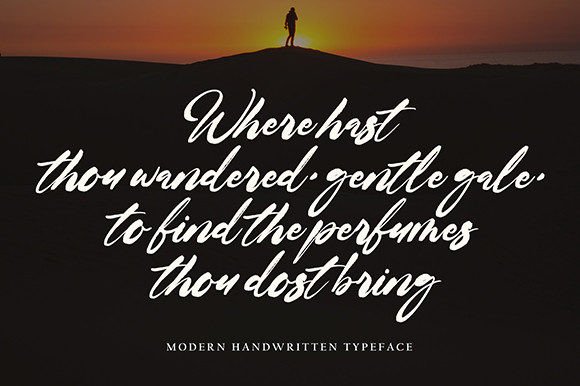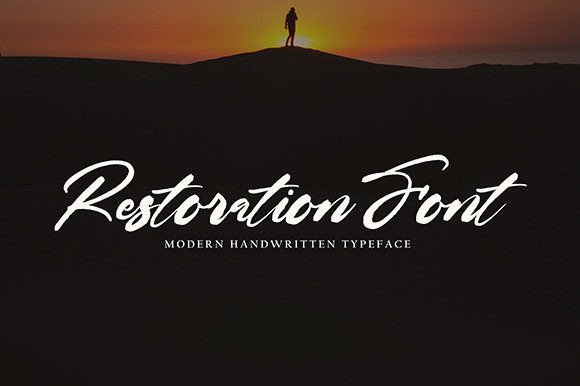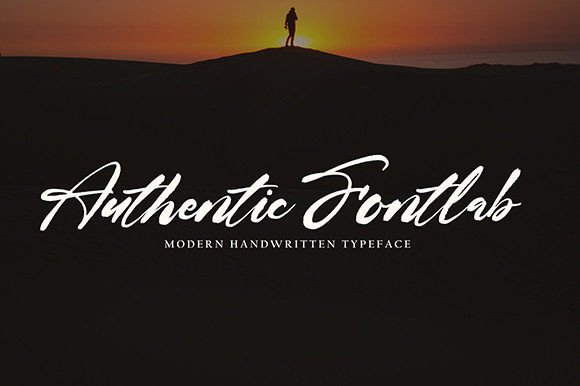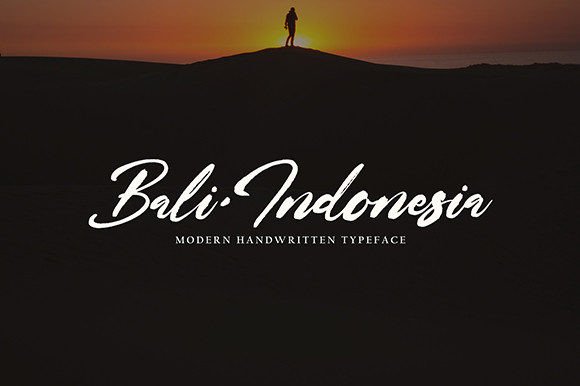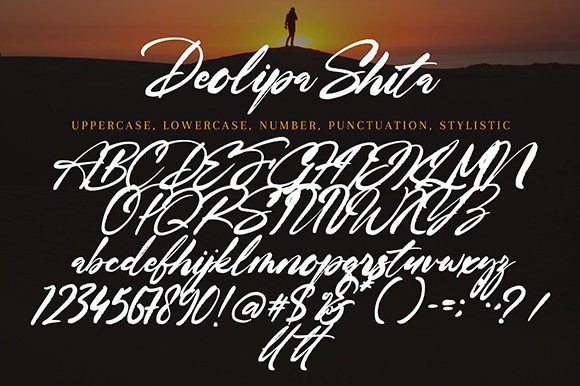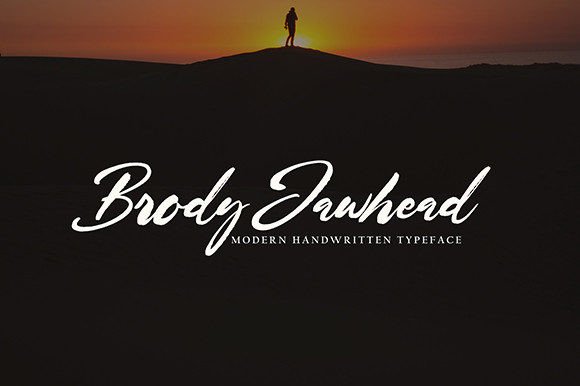
Introduction to Deolipa Shita Font
Deolipa Shita is a lovely and timeless handwritten font.
Key Features of Deolipa Shita Font
Why Choose Deolipa Shita Font?
Deolipa Shita Font offers exceptional quality and versatility, making it a valuable addition to your design toolkit. Whether you’re creating for personal projects or commercial use, Deolipa Shita Font delivers professional results.